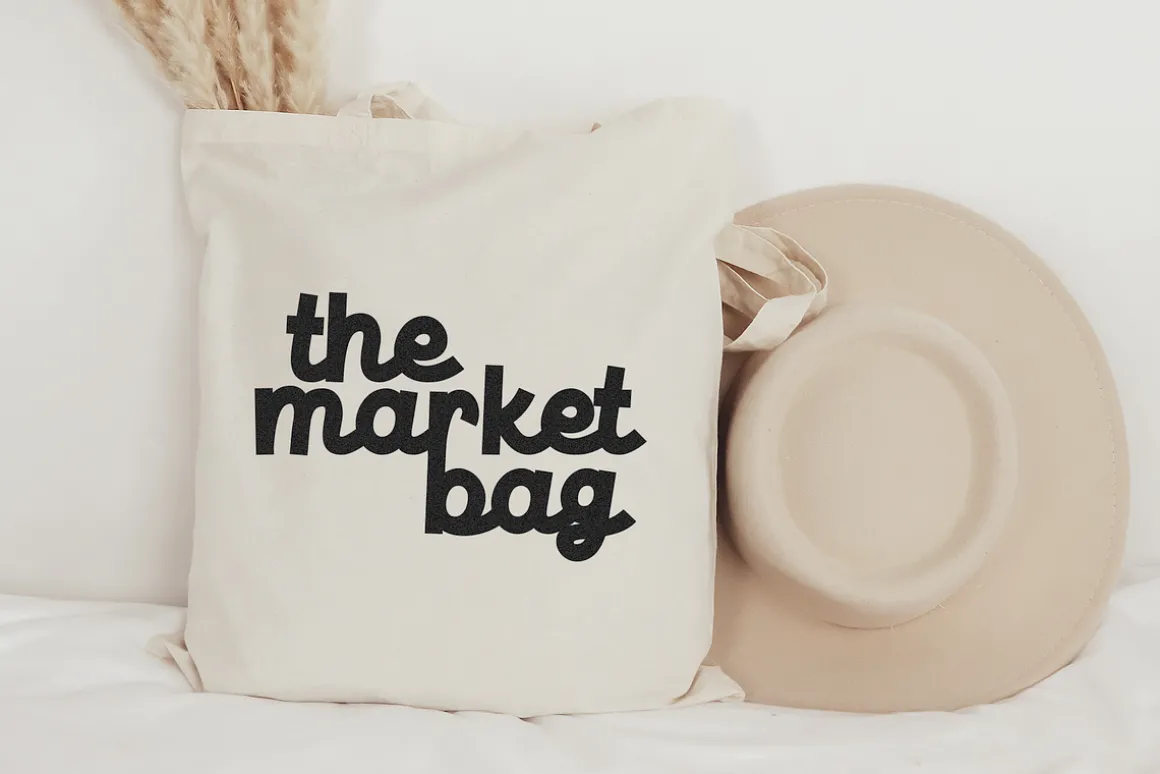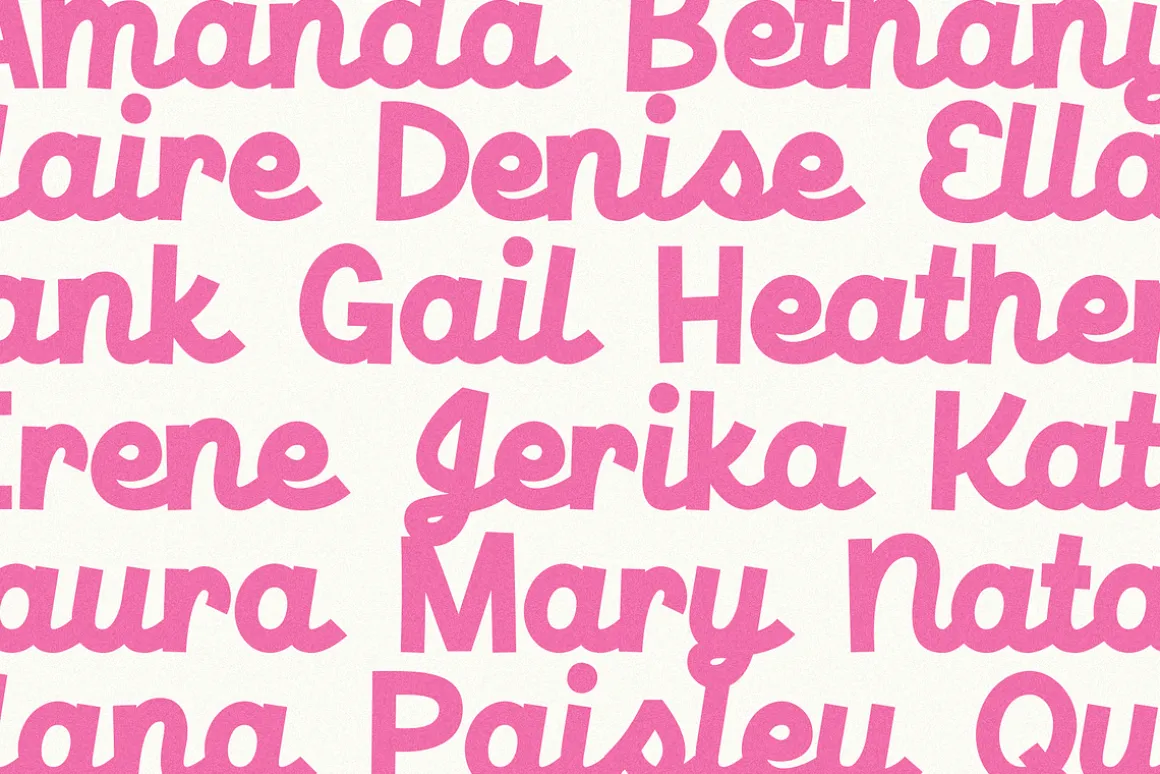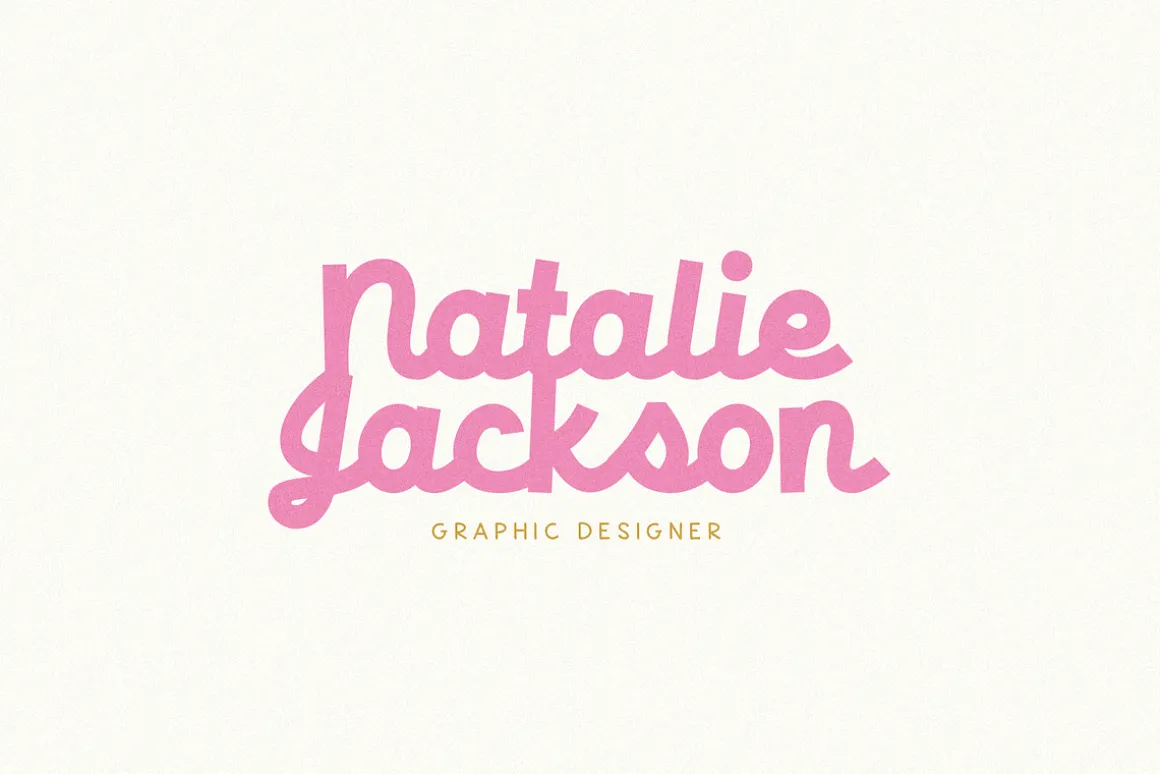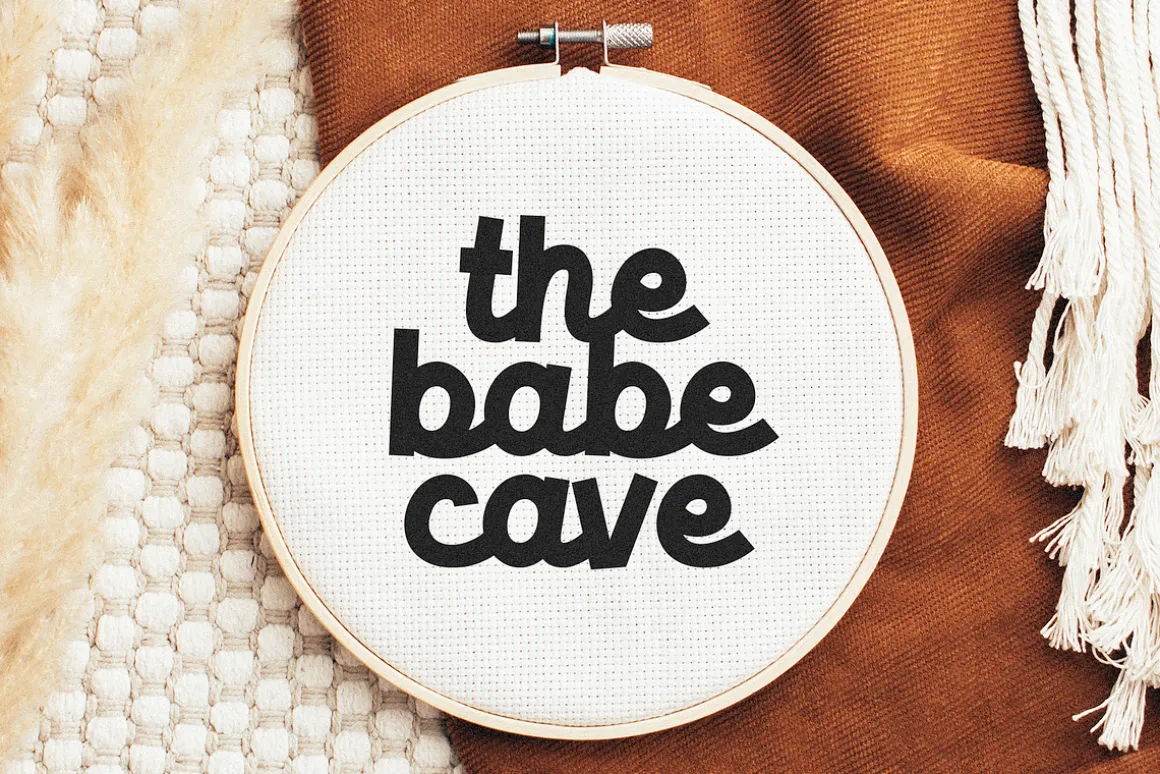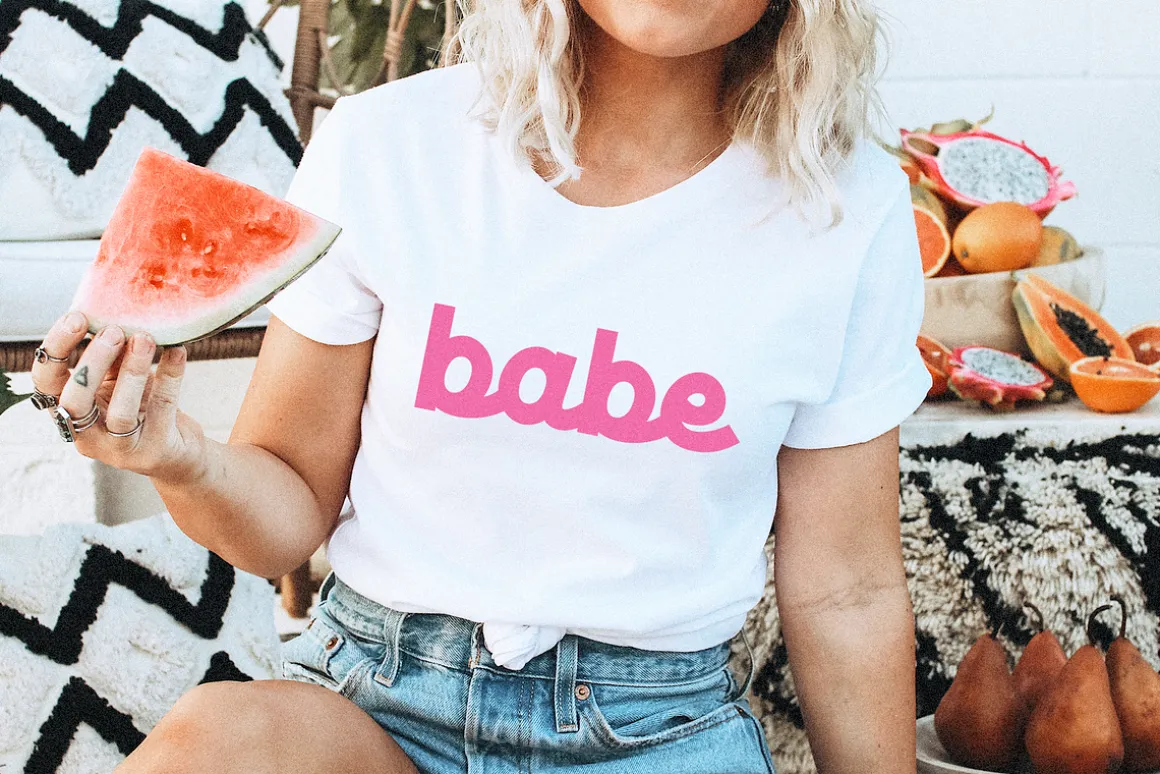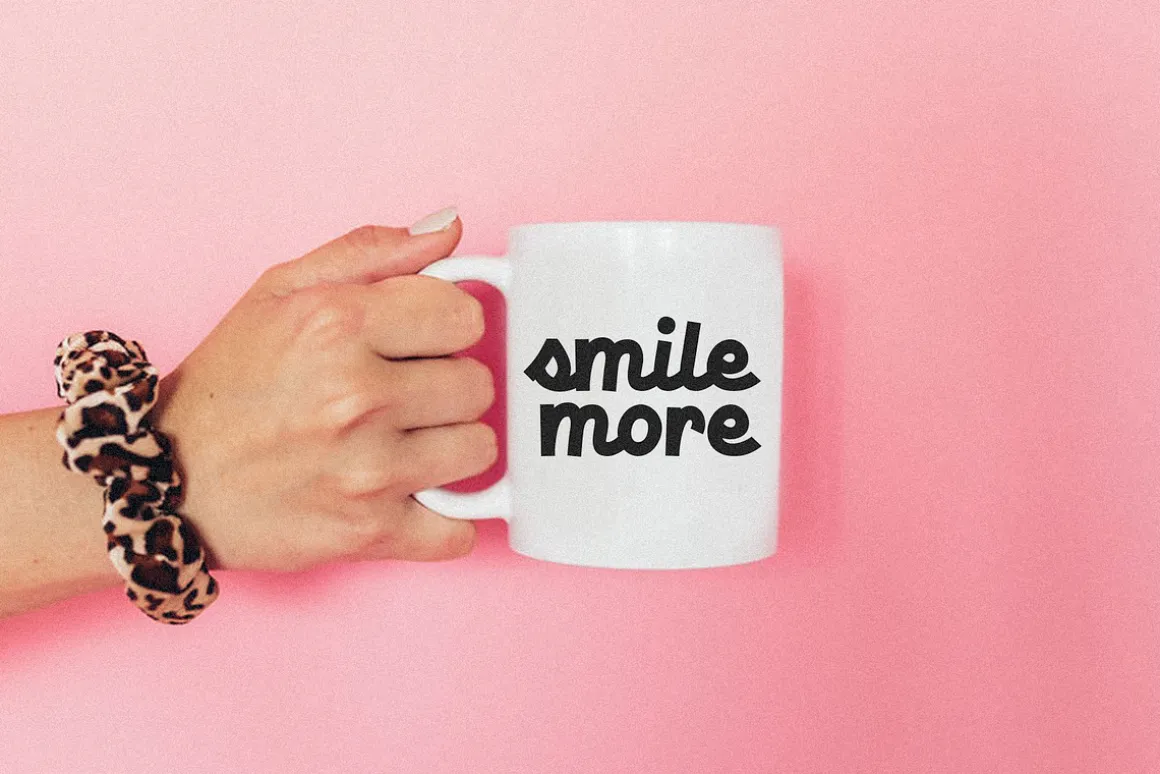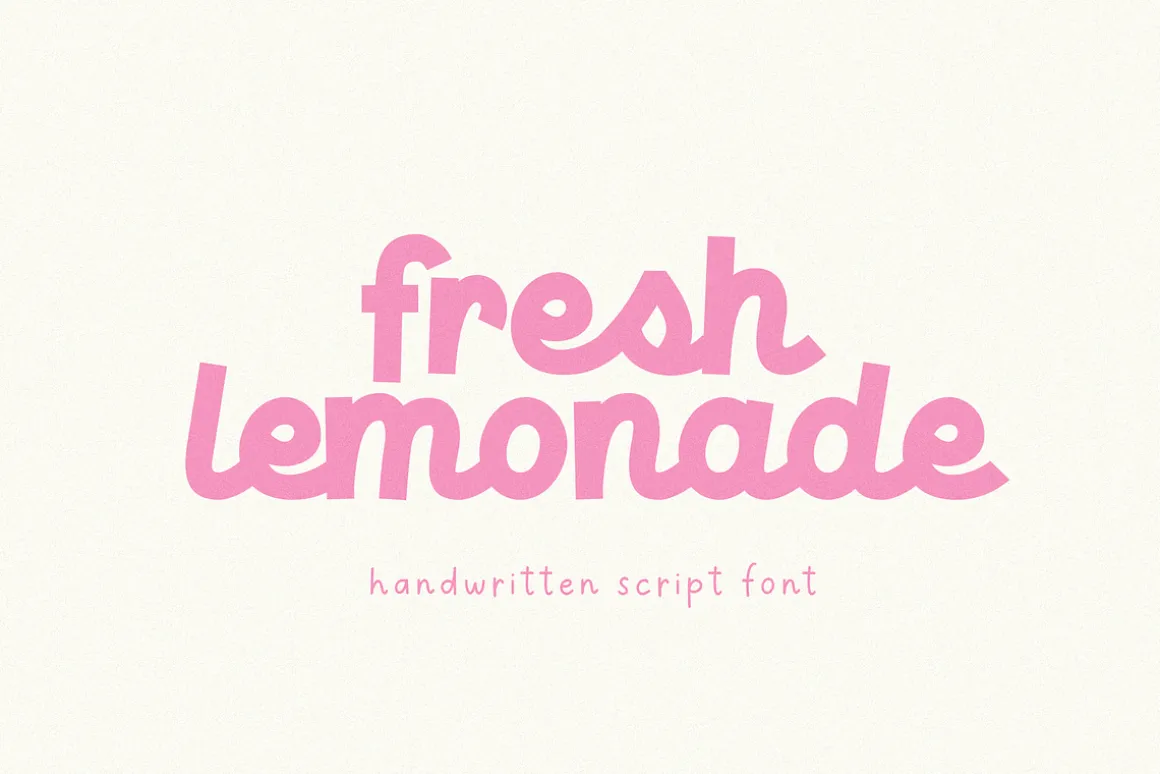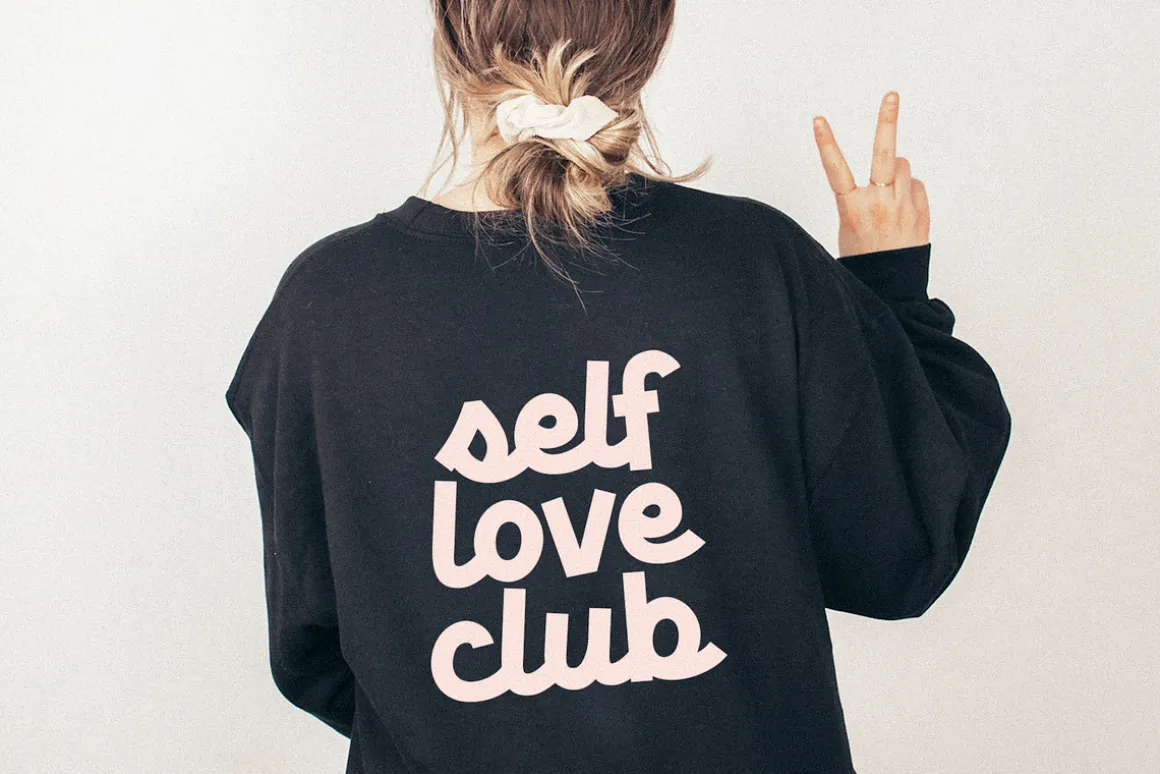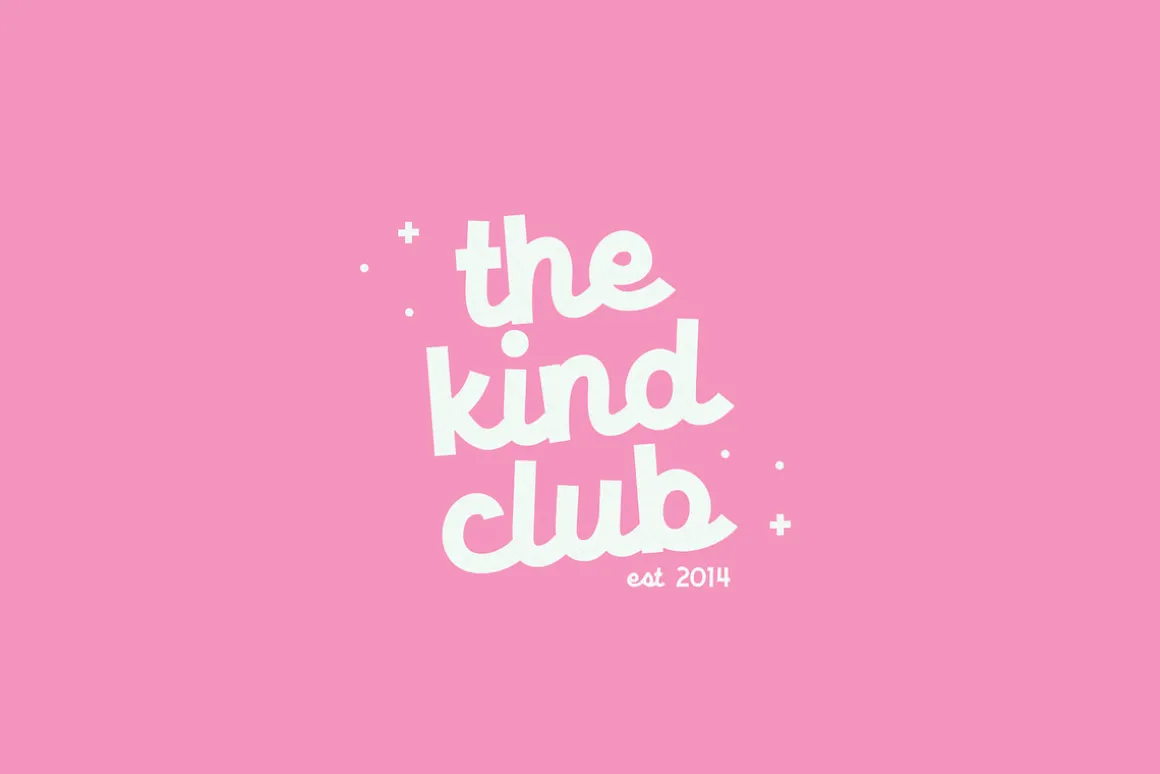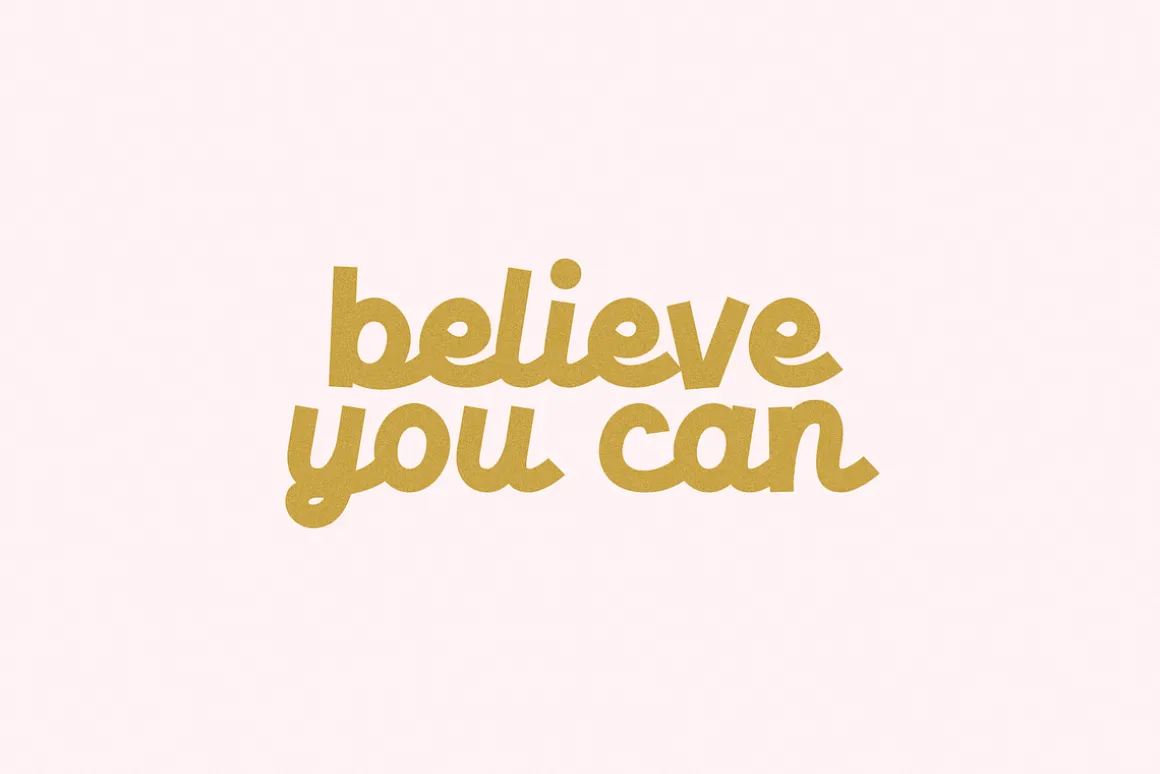
Fresh Lemonade is a handwritten script font.
This font is perfect for your retro designs, cricut projects, svg files, shirts, stickers, logos, social media and more!
Fresh Lemonade is a handwritten script font.
This font is perfect for your retro designs, cricut projects, svg files, shirts, stickers, logos, social media and more!